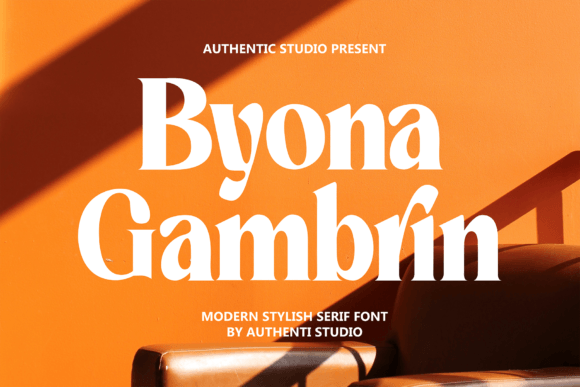
I still remember the frustration of working on a project, hours pouring over design elements, and yet, something felt off. The client wanted a font that exuded sophistication and elegance, but everything I tried seemed to fall flat. That’s when I stumbled upon the Byona Gambrin Font. Its classic yet modern vibe immediately caught my attention, and I knew I had to give it a try.
A First Impression: Byona Gambrin Font Review
After spending some quality time with Byona Gambrin, here’s what I think:
- ✨ Sophisticated and elegant: The font’s serif design and meticulous craftsmanship make it perfect for high-end projects.
- ✅ Versatile: Byona Gambrin works well for both digital and print designs, from luxury branding to editorial layouts.
- 💡 Unique character: The font’s subtle flair sets it apart from more traditional serif fonts.
While Byona Gambrin is an excellent font, there are a few things to keep in mind:
- 🤔 Limited use of all-caps: While the font looks great in all-caps, some letters may appear a bit too bold or heavy.
- ⚠️ Glyph support: Some users may find the glyph selection a bit limited, especially for non-English languages.
The Story Behind Byona Gambrin Font
Byona Gambrin was designed by a team of typographers who aimed to create a font that would bring a touch of sophistication to any design project. Inspired by classic serif fonts, they added a modern twist to create a unique and elegant typeface.
| Font Name | Byona Gambrin Font |
| Author | Authentic Studio |
| What is the style of Byona Gambrin Font? | Byona Gambrin is a serif font with a classic yet modern feel. |
| Is Byona Gambrin suitable for digital use? | Yes, Byona Gambrin works well for digital designs, including websites, social media, and email marketing. |
| Does Byona Gambrin support OpenType features? | Yes, Byona Gambrin supports OpenType features, including stylistic alternates and swashes. |